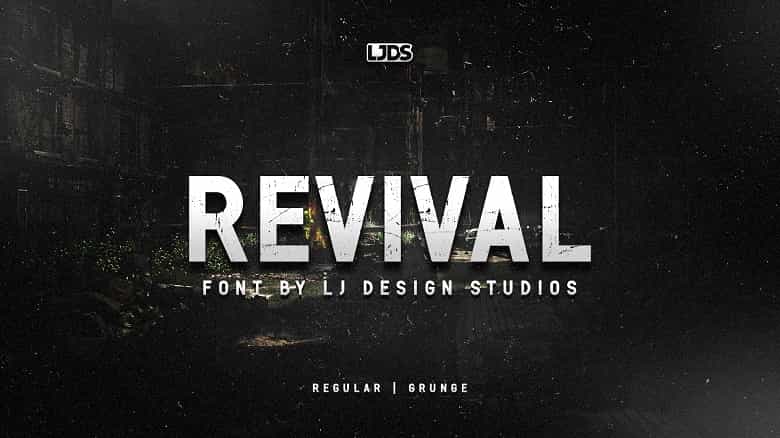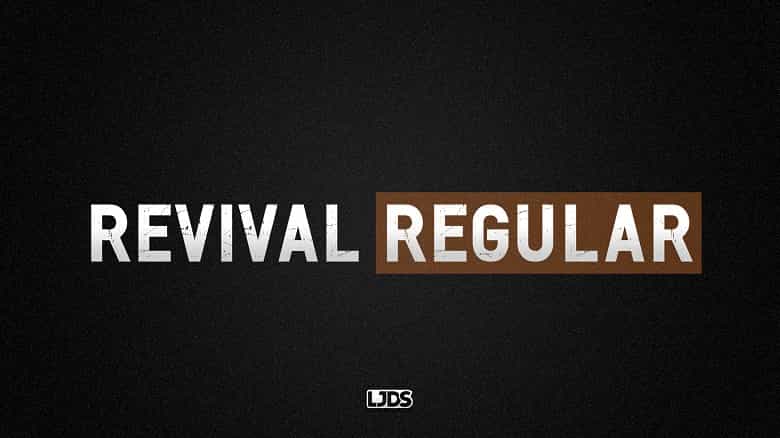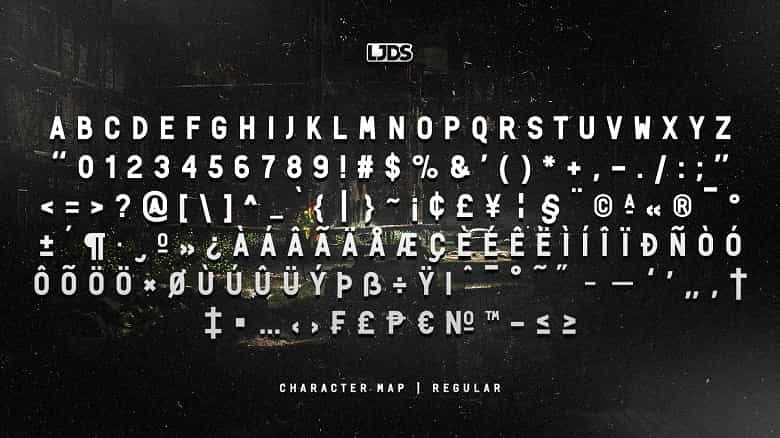
Revival is a semi-condensed capital letter sans serif font, available in two font families (Regular and Grunge). This is an aesthetic design, easy but quite appealing to create interesting layouts or even titles with some flair.